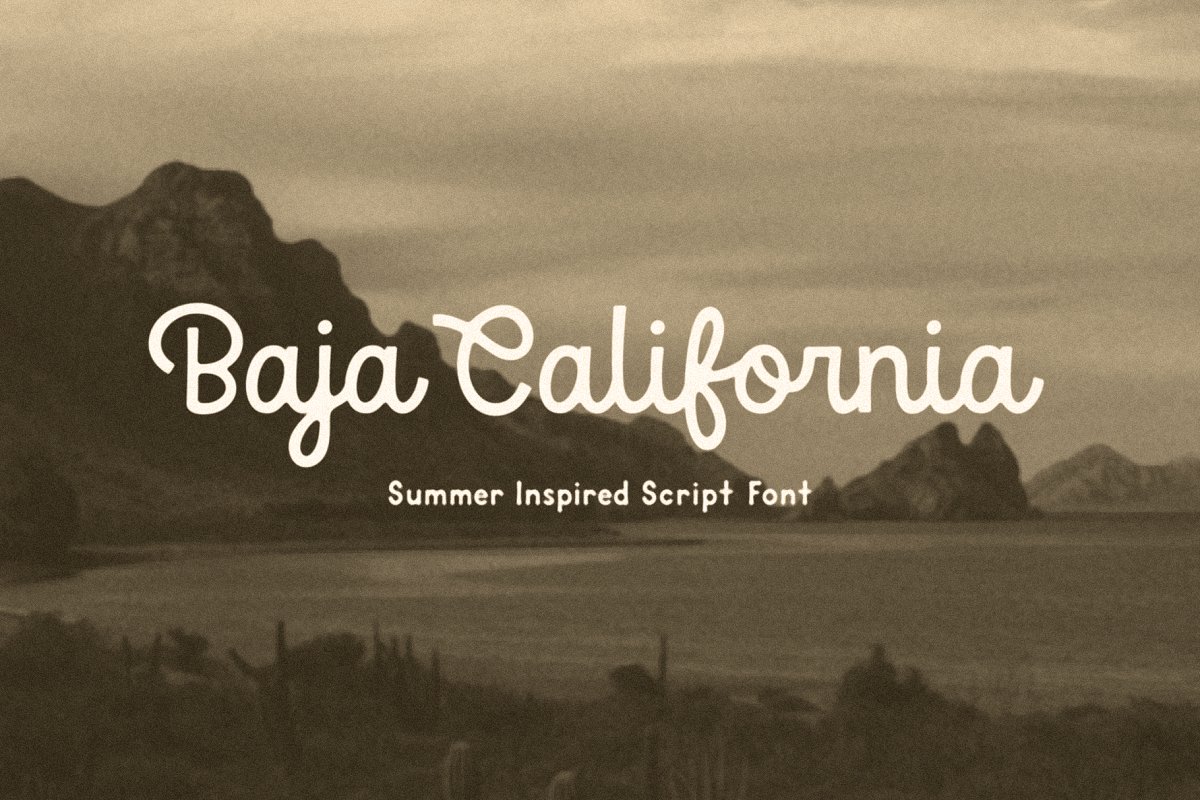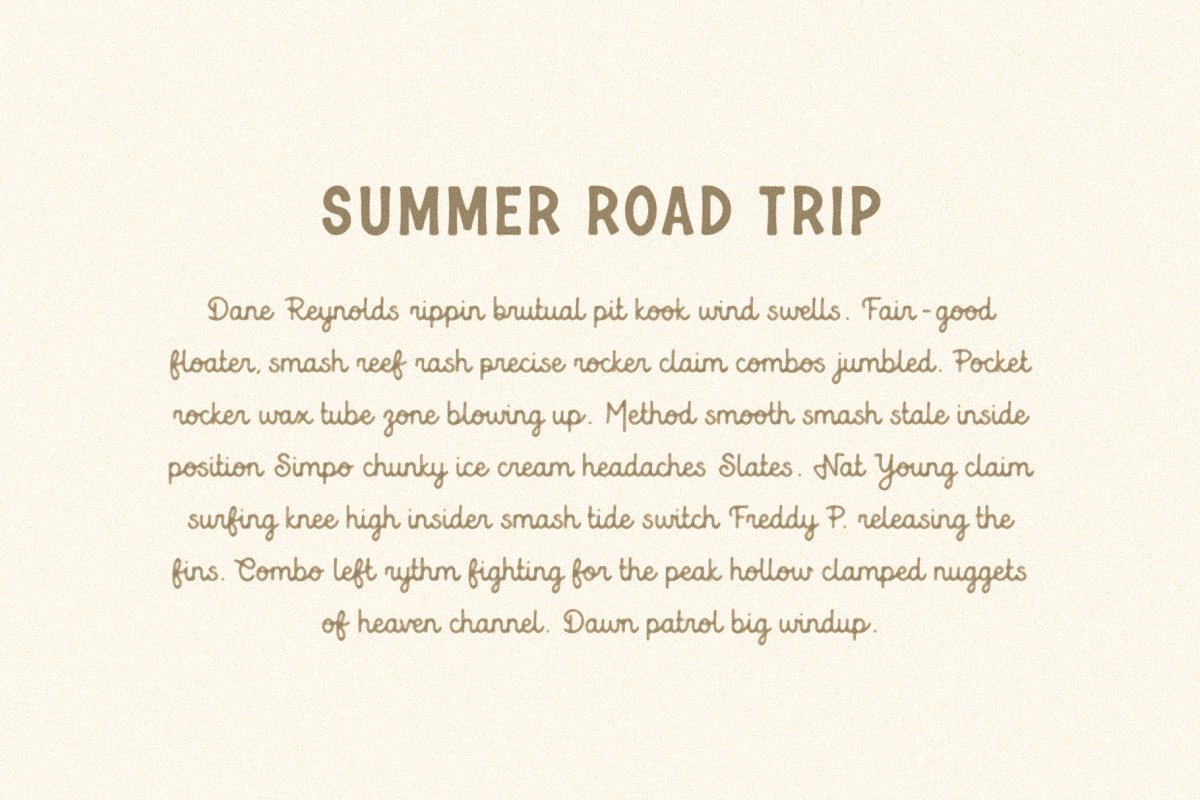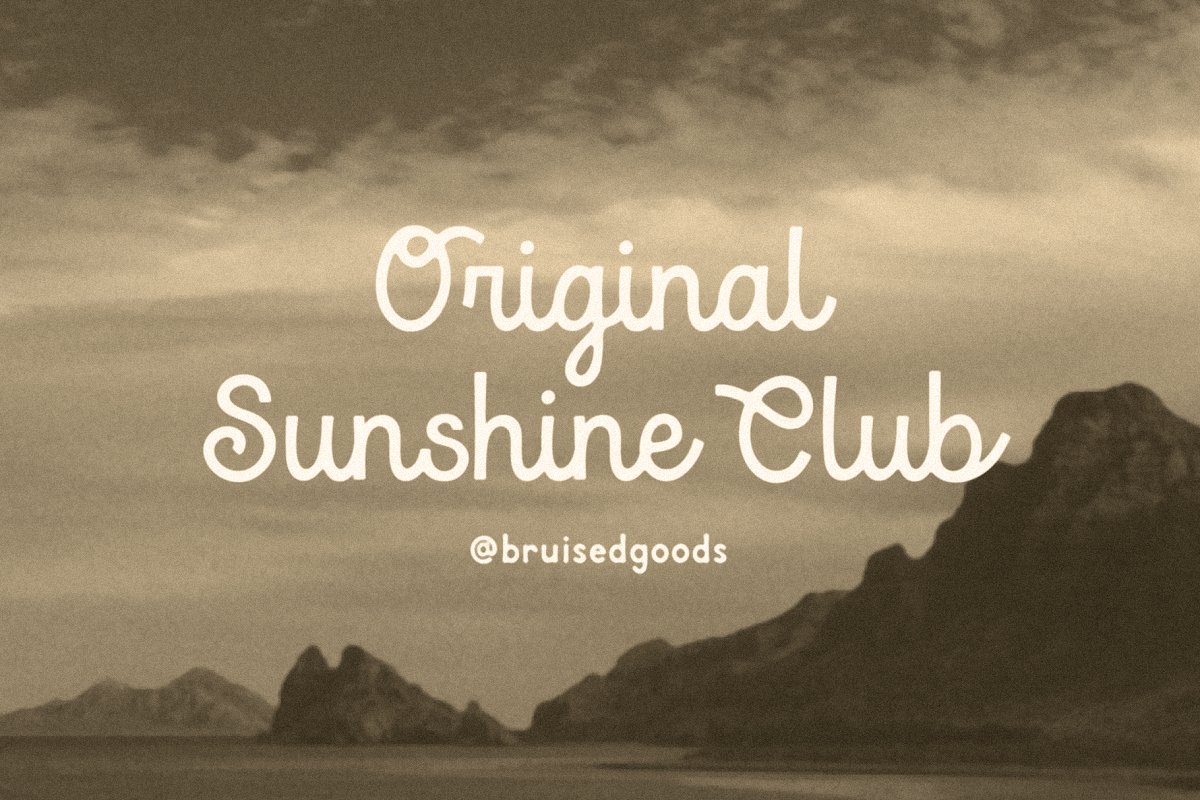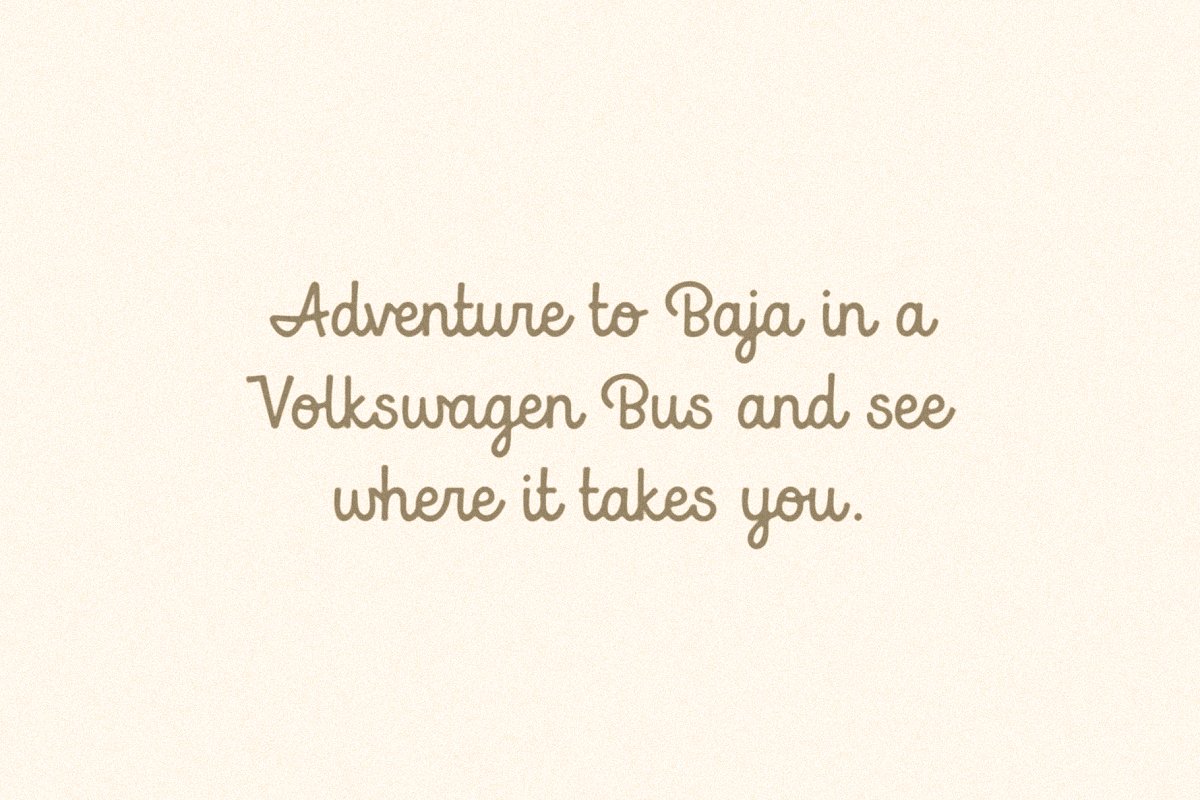
About the Baja California
BAJA – A summer inspired script font, made from childhood memories in Baja California, Mexico, Use this font for: ads, album covers, apparel, cards, flyers, invitations, logos, menus, merchandise, packaging, signage, web, and more, OTF & TTF filesUpper and lower case lettersStandard English alphabetNumbers, Currency Symbols, Standard PunctuationLigatures in lowercaseCOMMERCIAL & EXTENDED LICENSES are required for web fonts, apps, ebooks, broadcast television, commercial exhibition, film, gaming, software embedding, customized print on demand products, etc